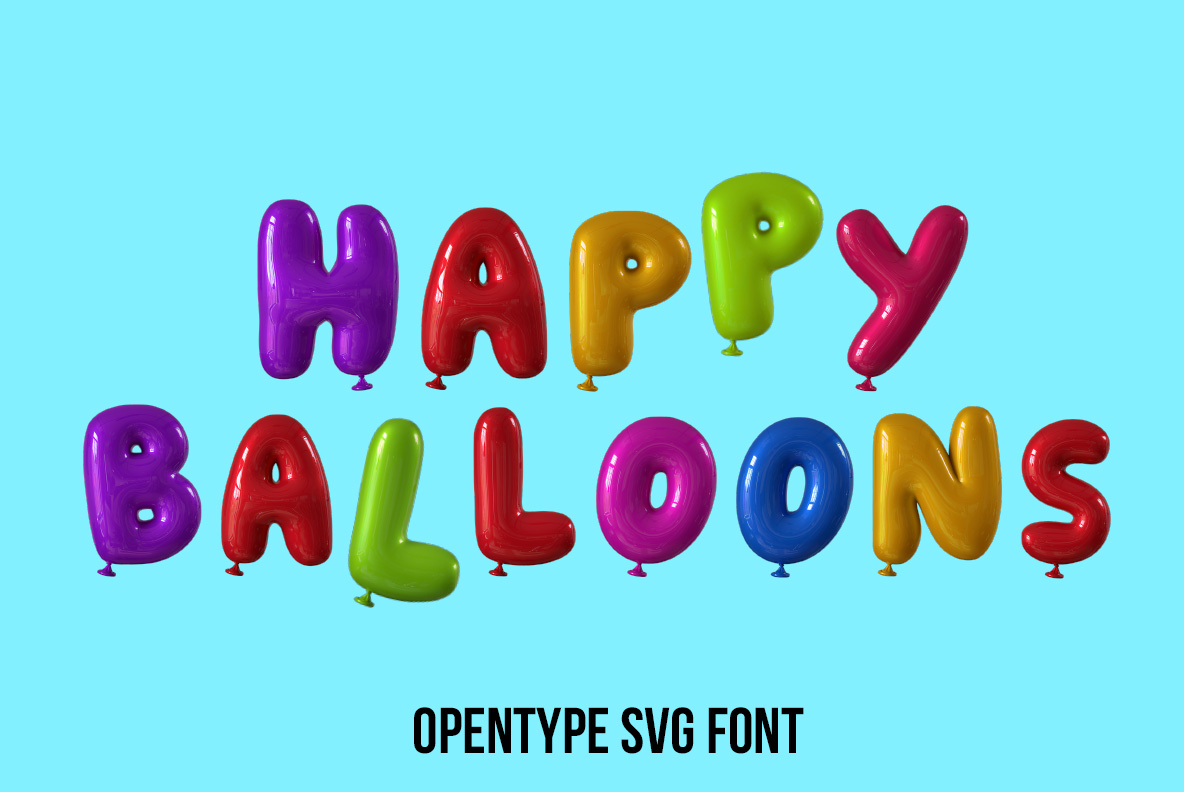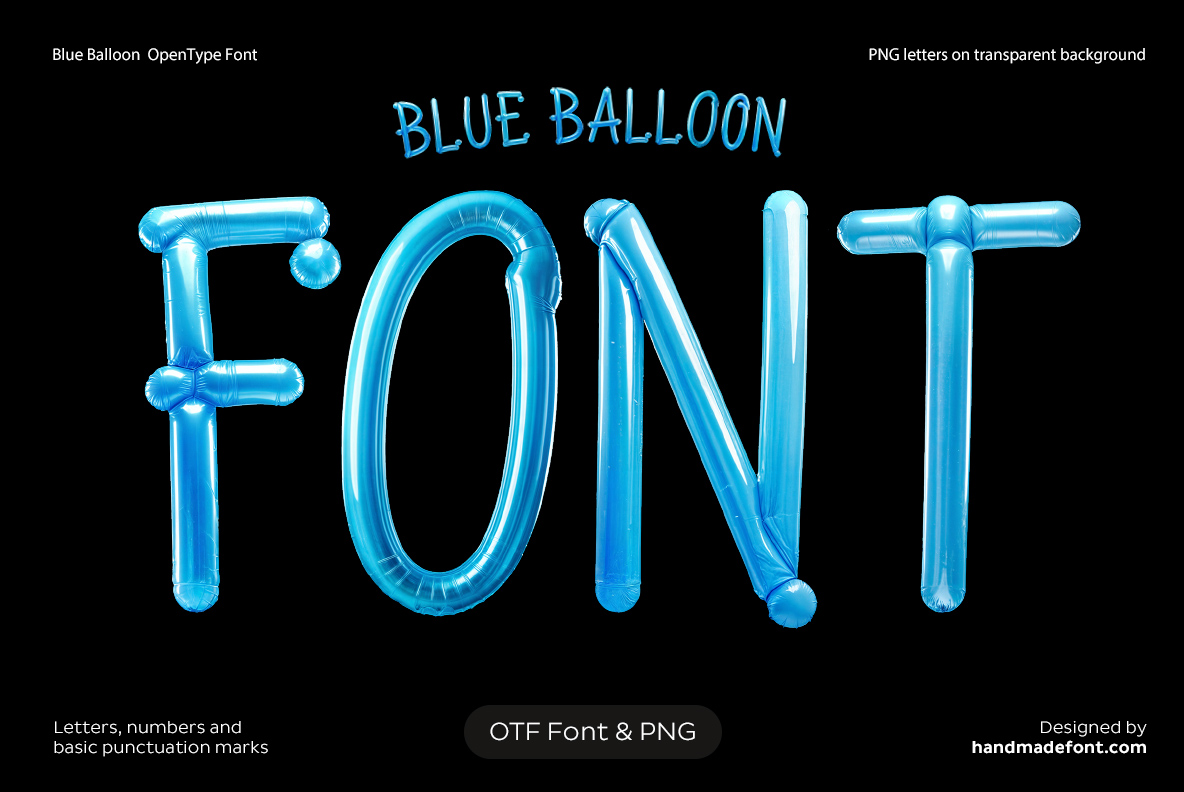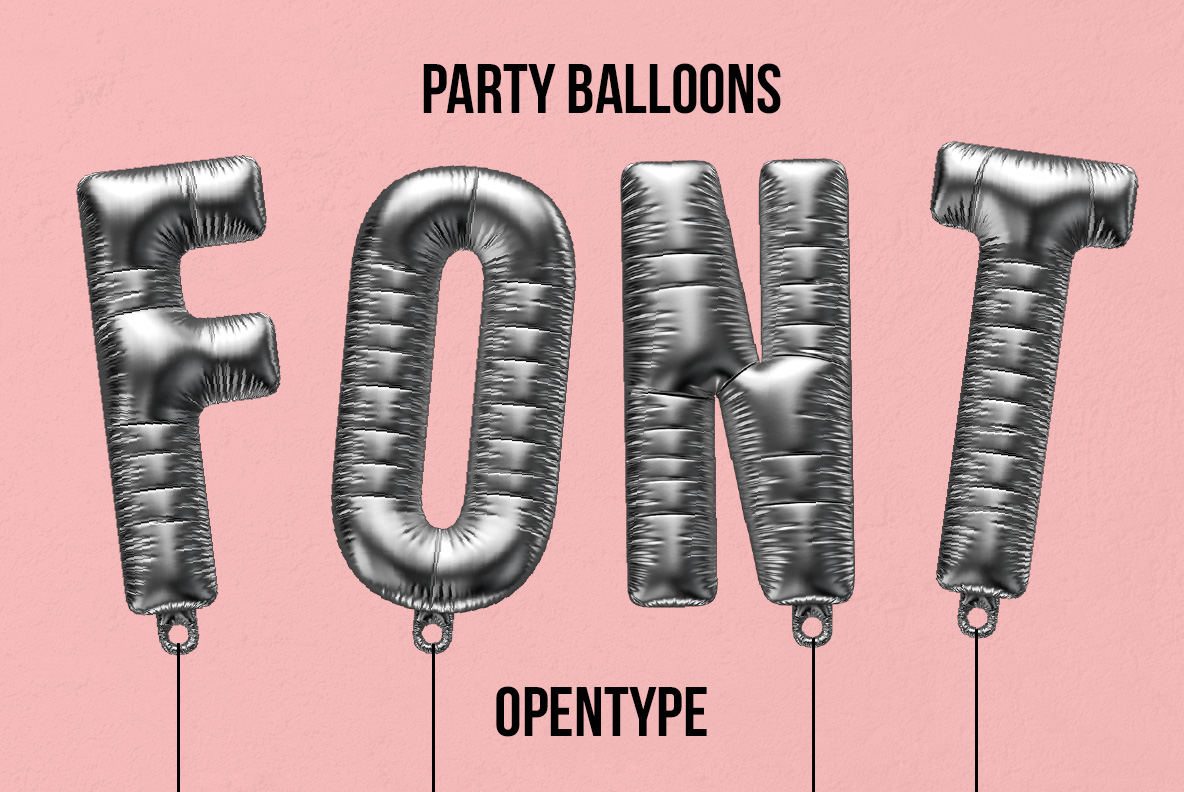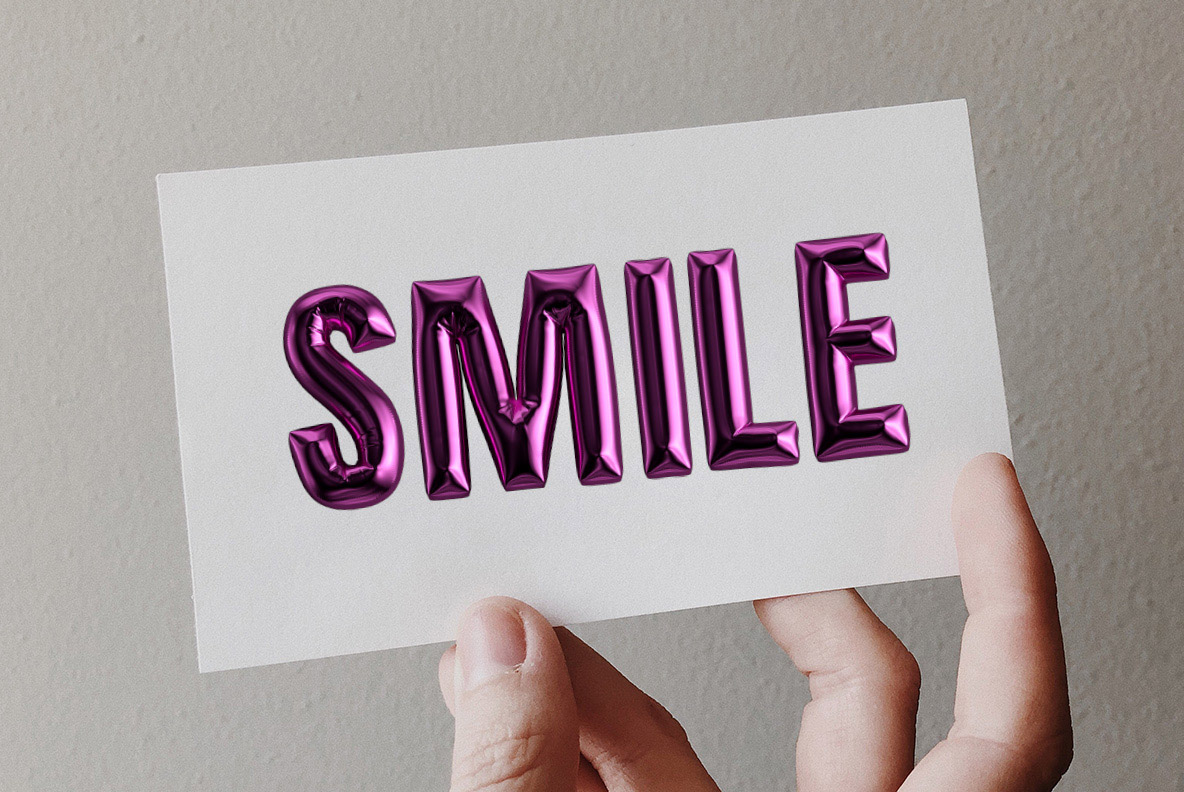
Balloon Fonts – Inflated, Colorful & Party Typefaces
Balloon Fonts turn letters into shiny, inflated objects full of color and personality. This collection brings together bright balloon shapes, metallic surfaces, glitter textures and playful party-inspired typography. From colorful birthday lettering to polished golden forms, these dimensional fonts are perfect for invitations, posters, packaging, advertising, social media and bold celebration graphics.
Balloon Fonts here start from something actually inflated, never a round typeface with a gradient laid over it. Latex stretches thin on the curves, foil keeps the creases it picked up in the packet, and every highlight sits where a real lamp would put it. Blow a letter up to poster size and it still behaves like a balloon.
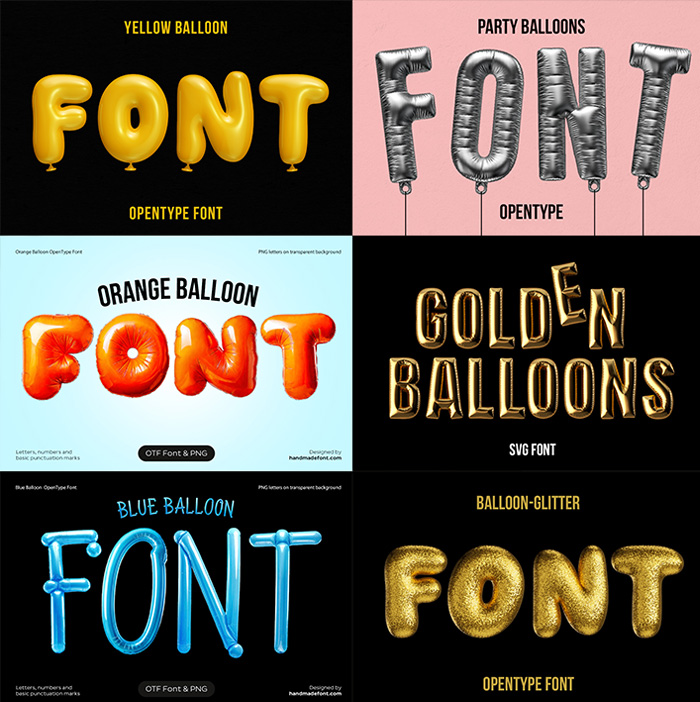
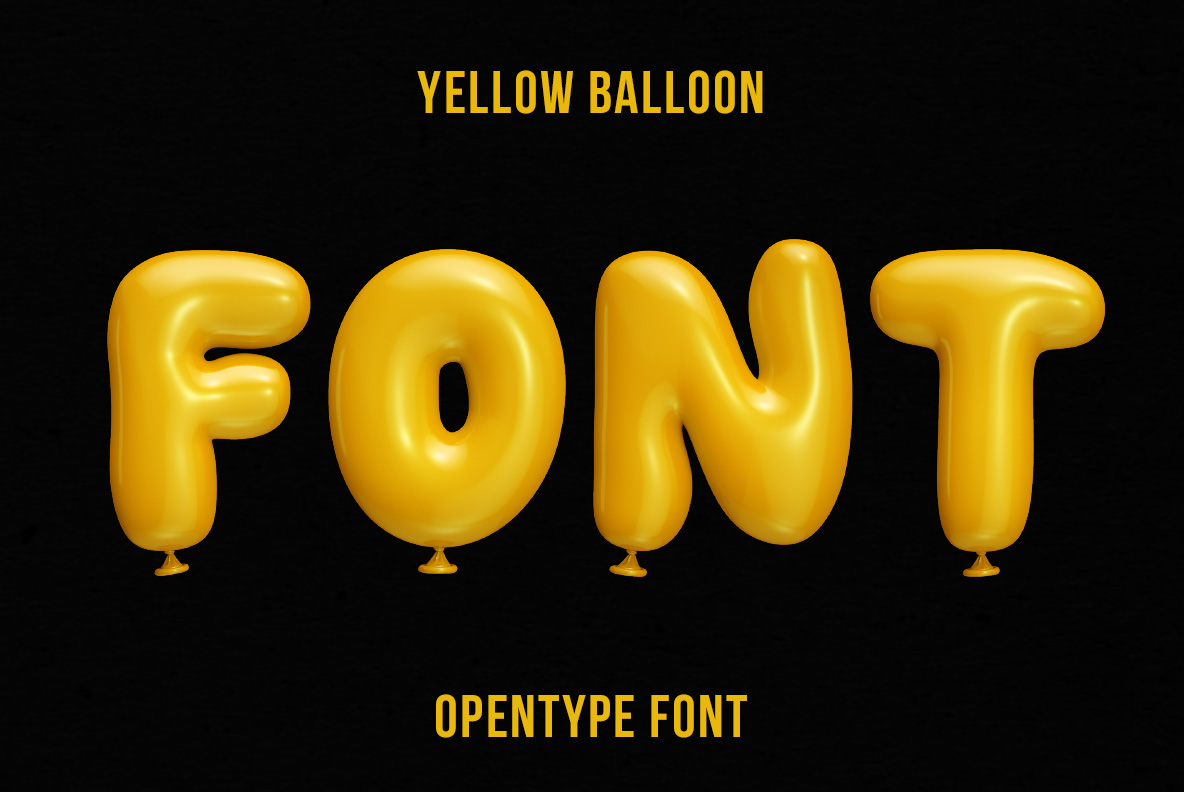Latex, Foil, Glitter and a Lot of Air
Yellow Balloon Font with bright yellow three-dimensional balloon letters
Yellow Balloon Font
Fat, soft yellow latex with the knot still showing under every letter.
Orange Balloon Font with glossy orange inflated letters
Orange Balloon Font
Glossy orange foil, blown tight, with the inflation valve left in plain sight.
Happy Balloon Font with colorful twisted balloon letters
Happy Balloon Font
Twisted modelling balloons in purple, green, red and blue, knots included.
Blue Balloon Font with glossy blue inflated letters
Blue Balloon Font
Long thin blue tubes bent into letterforms, the way a clown twists them.
Party Balloons Font with shiny silver inflated letters
Party Balloons Font
Crinkled silver foil on strings, caught mid-tug toward the ceiling.
Happy Birthday Font with colorful balloon letters for celebration design
Happy Birthday Font
Magenta foil with a violet edge, built for one particular word.
Golden Balloon Font with shiny metallic gold balloon letters
Golden Balloon Font
Warm gold foil, the finish that turns up on milestone birthdays.
Balloon Glitter Font with sparkling inflated balloon letters
Balloon Glitter Font
Gold glitter dusted over inflated forms, grainy close up and bright across a room.
Balloon Fonts on Invitations, Windows and Cakes
Parties come first, naturally: invitations, table cards, the huge number taped to the wall behind the cake. Shop windows and sale graphics are the second home, because an inflated word reads as cheerful before anyone has finished reading it. Beyond that — toy packaging, childrens publishing, music posters, anything after volume without shouting. One piece of advice: give the letters room. Crowd them and they stop looking inflated.
The Rest of the Balloon Fonts
The Balloon Fonts above are the ones with full card artwork, though the shop carries far more air than that. By colour there are Red Balloons Font, Air Balloon Font, Vibrant Balloon Font, Sunny Balloon Font, Royal Balloon Font, Multicolored Balloon Font, Pink Party Balloon Font, Metallic Balloon Font and Silver Balloon Font. Then the shop versions of party foil: Foil Balloon Blue Font, Foil Balloon Red Font and Christmas Balloon Font.
The stranger finishes sit together — Holographic Balloon Font, Iridescent Balloon Font, Star Balloon Font, Disco-Spark Font and Chrome Balloon Font. Inflation without the party, meanwhile, is Inflatype Font, Darkside Font and Blue Inflatable Swimming Ring Font, while Golden Party Font, Black Party Font and Plastic Party Font keep the celebration and drop the helium.